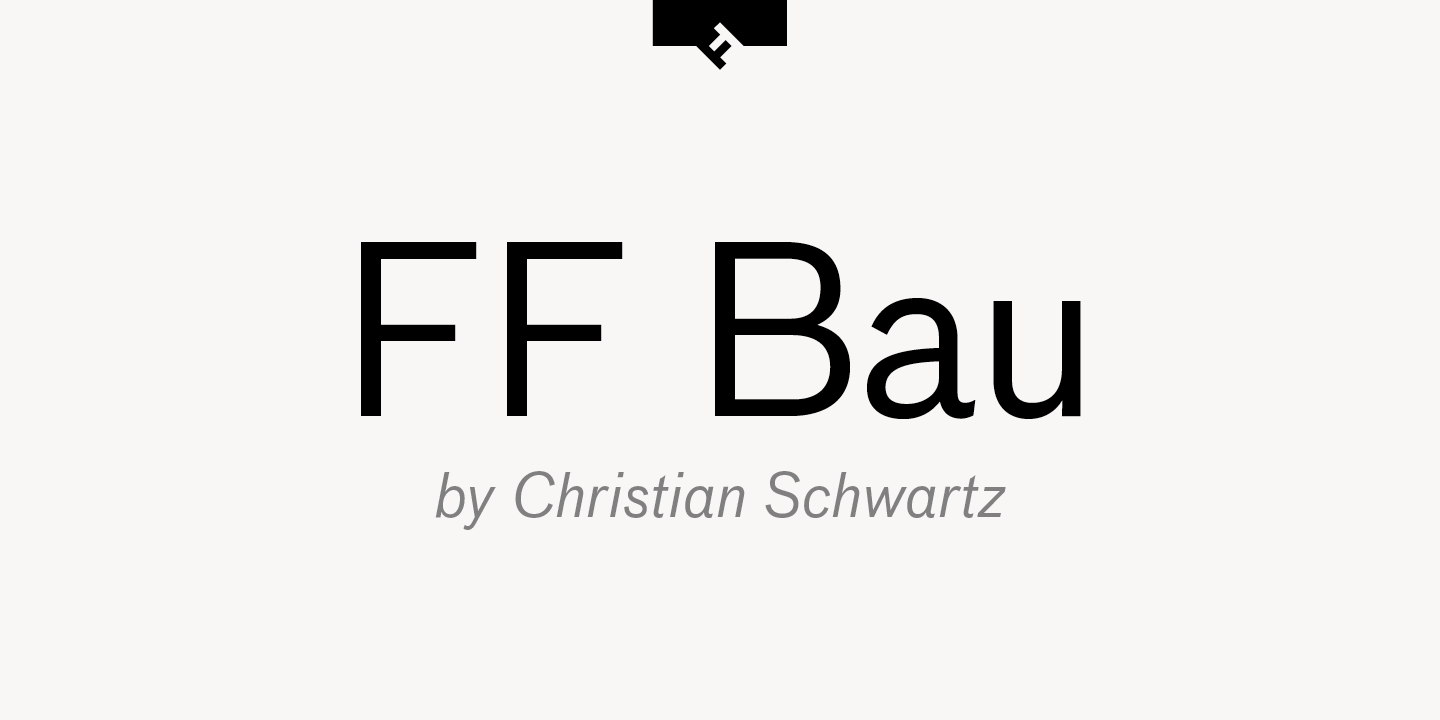
FF Bau Font Free Download presents designers with a modernist typeface that embodies Bauhaus design principles and architectural precision with contemporary functionality. However, for commercial use, you must purchase this font. You can download it for free for testing purposes only.
FF Bau Font excels in architectural design applications including construction company branding, design studio identities, modernist architecture presentations, industrial product packaging, engineering firm materials, contemporary art galleries, minimalist web interfaces, urban planning documents, structural design reports, and progressive corporate communications. This geometric typeface brings Bauhaus sophistication to modern design projects.
What makes FF Bau Font truly exciting is its faithful interpretation of Bauhaus typography philosophy with rigorous geometric construction and functional clarity. The font features pure geometric letterforms with consistent proportions and mathematical precision that reflect the movement's commitment to form following function. Its modernist heritage and architectural character make it perfect for brands embracing minimalist design principles, structural integrity, and the timeless appeal of German design methodology.
The FF Bau Font family encompasses comprehensive weights including Light, Regular, Medium, Bold, and Black variations with potential Condensed options. These systematic options provide designers with complete typographic flexibility while maintaining the font's distinctive Bauhaus character and architectural precision across various applications and design contexts.
Whether you're developing architectural branding, creating modernist publications, or designing industrial campaigns, FF Bau Font Free Download delivers the geometric purity and design philosophy that architectural projects require. Its exceptional heritage and modernist principles make it invaluable for designers working with architecture firms, design schools, and progressive brands requiring authentic Bauhaus typography that celebrates functional beauty, geometric perfection, and the enduring influence of German modernist design thinking.